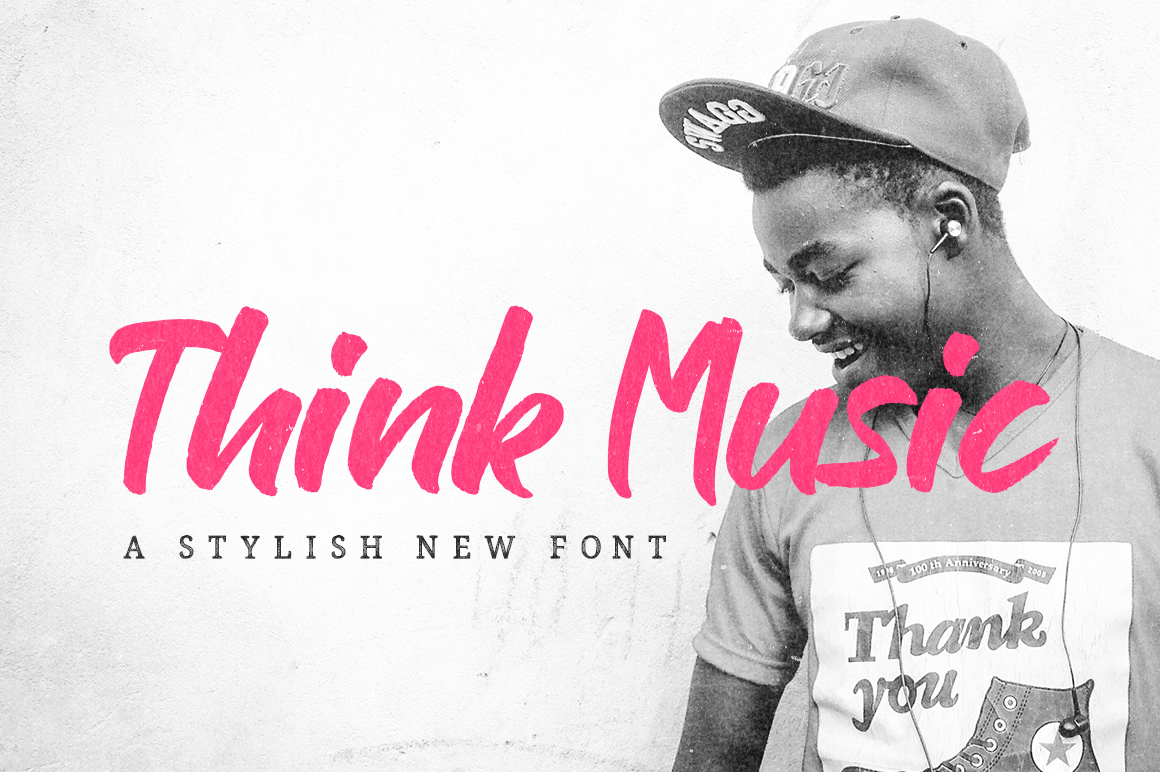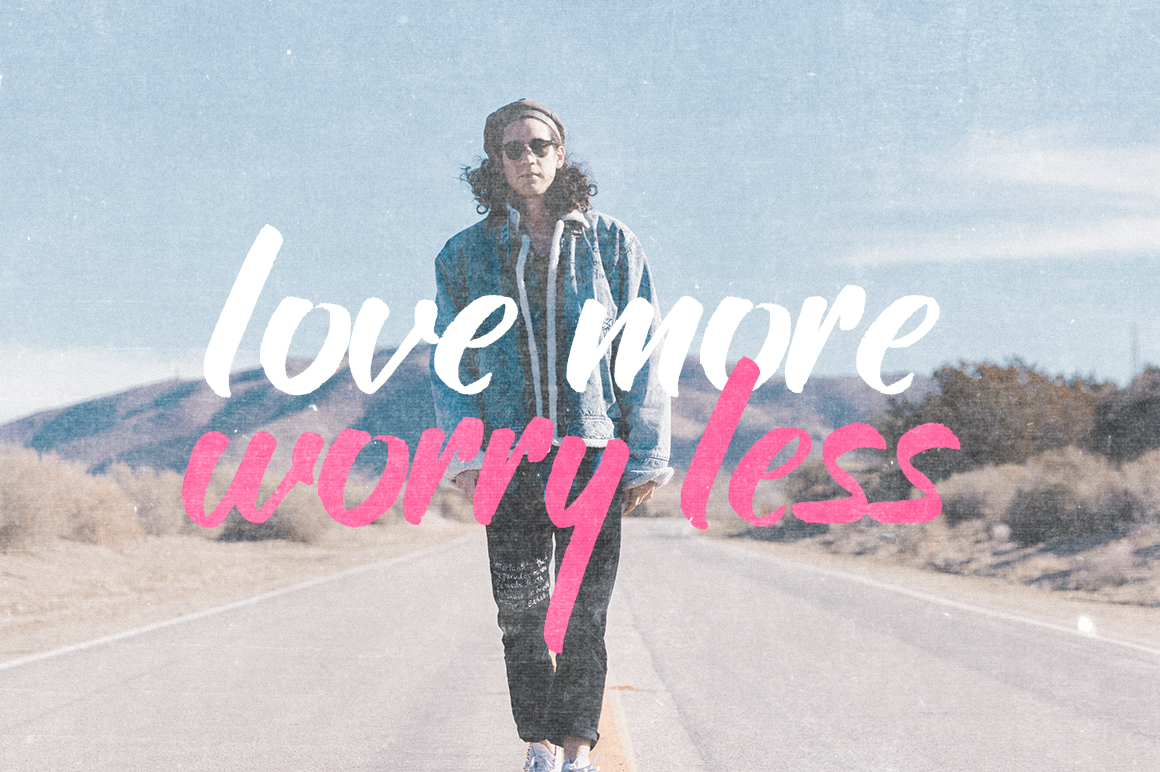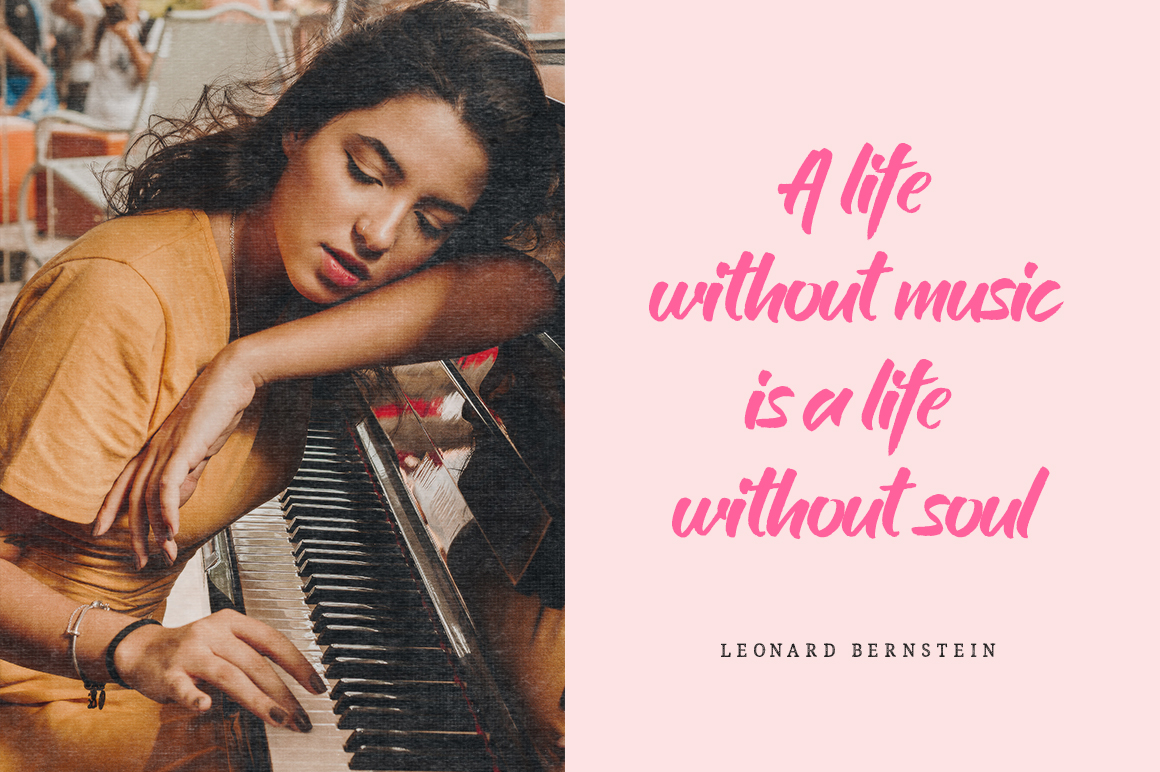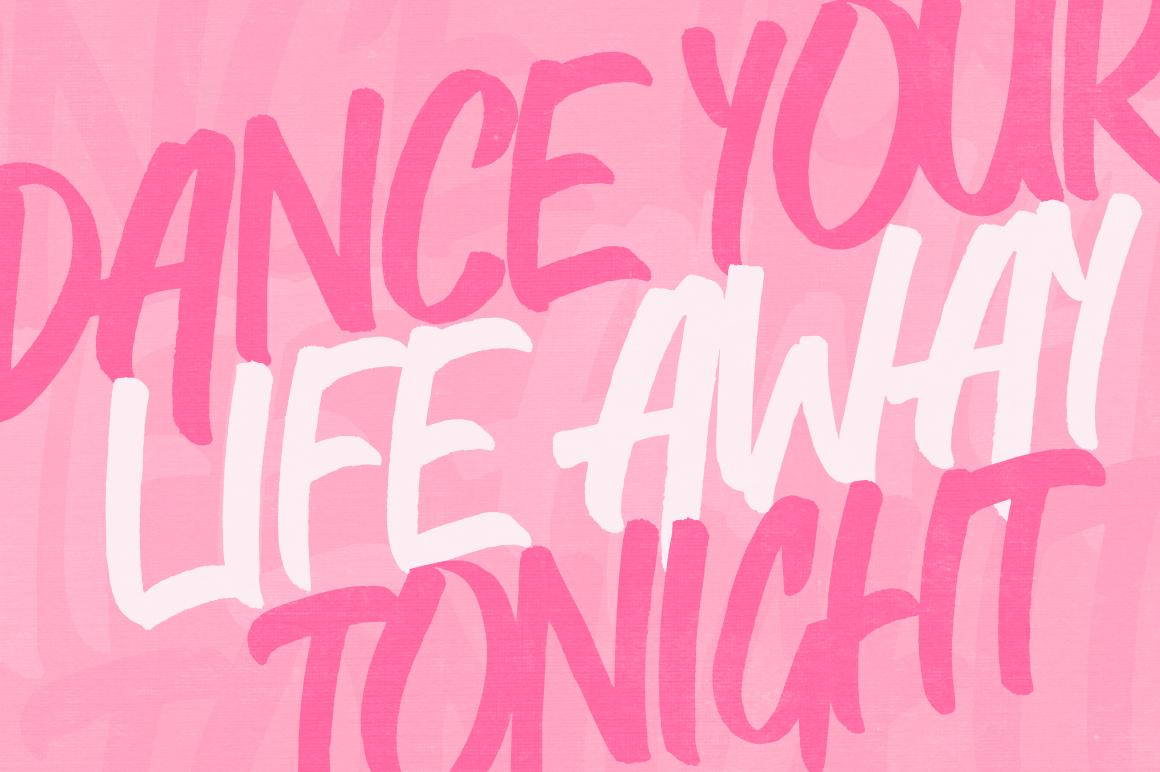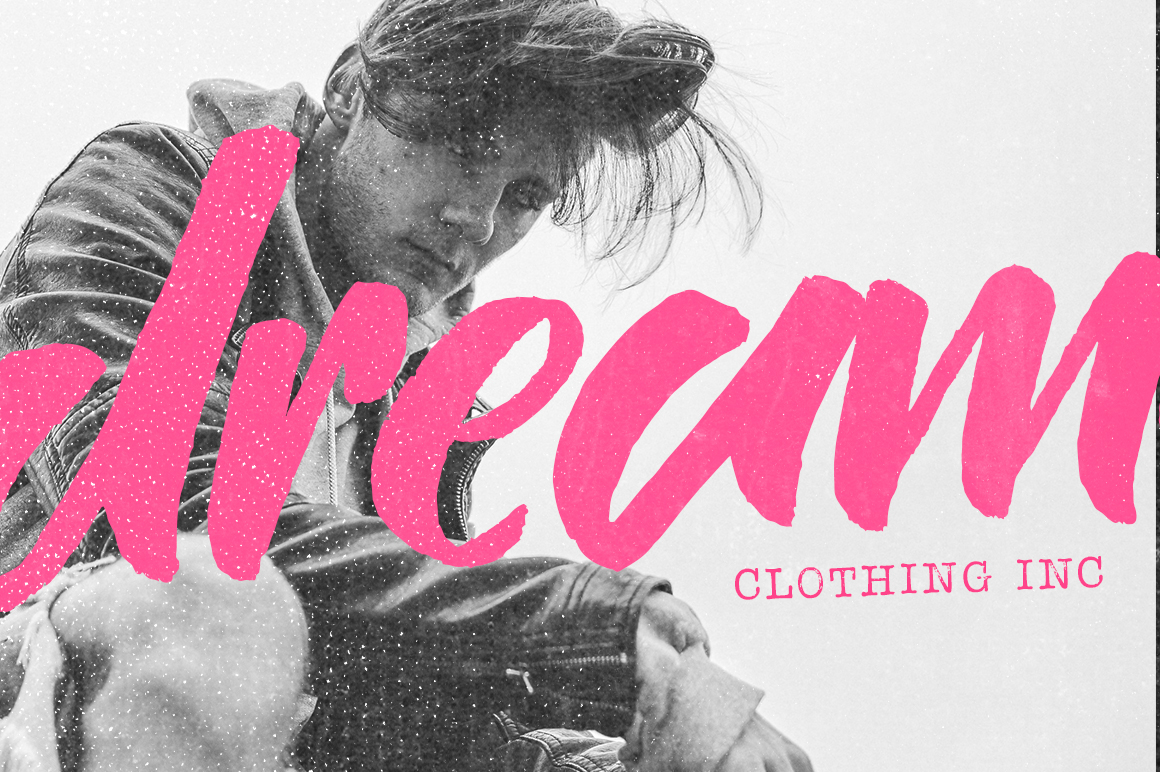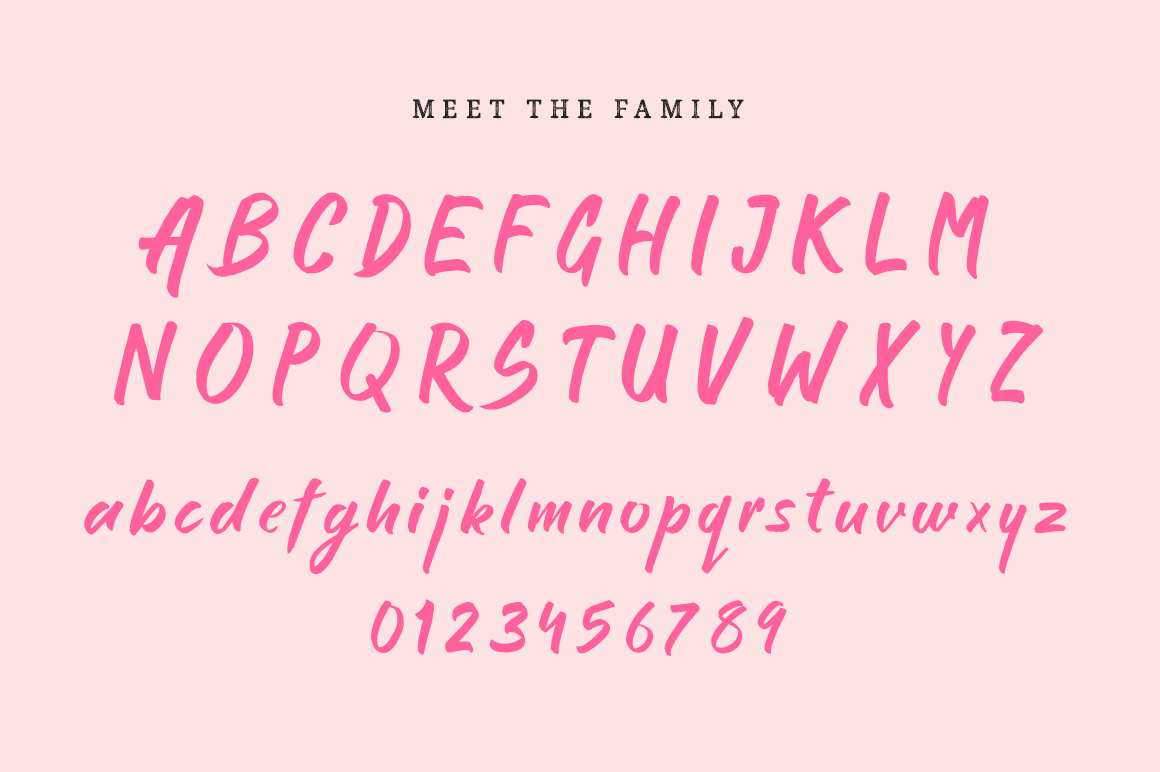
Think Music Script Font
Think Music is a thick brush font inspired by the chunkier scripts. This melodious script font is perfect for company logo, greetings, invitation, branding, poster, flyers, book cover, quotes, etc.